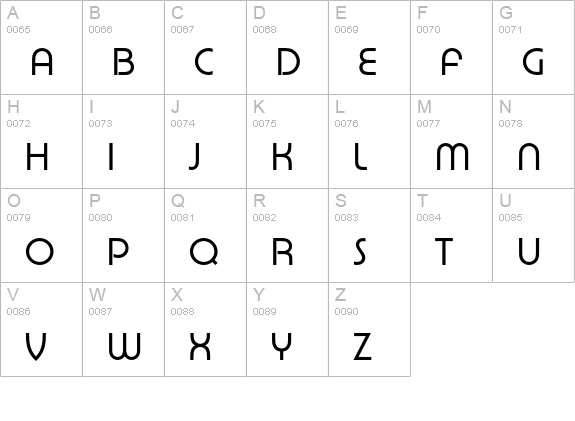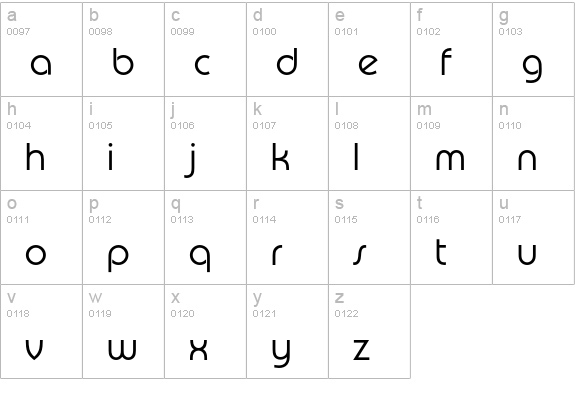
PumpEF-Light is a refined, elegant variant in the PumpEF typeface family \xE2\x80\x94 well suited to elegant body text, refined sub-headings, and luxury branding.
PumpEF-Light font is a sleek and modern typeface that exudes elegance and sophistication. With its clean lines and stylish curves, this font is perfect for adding a touch of class to any design project. Whether you're creating a logo, poster, or website, PumpEF-Light will elevate your work to the next level. What's even better is that PumpEF-Light is completely free to download at FontsMarket.com. Yes, you read that right - you can get your hands on this stunning font at no cost. Don't miss out on the opportunity to enhance your designs with PumpEF-Light and take advantage of its timeless appeal. Download it today and let your creativity shine!